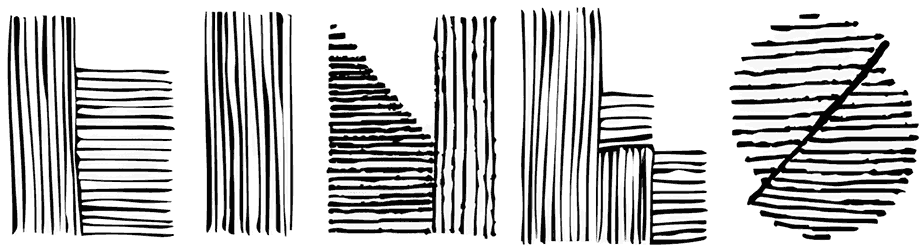
Lines Font
Lines is a unique artwork that comes with a spectacular style and easily grabs the attention of the audience with the help of its eye-catching look.
This all-caps linear font can multiply the influence of your graphic content by adding a sense of jauntiness, eeriness, grunge, and disorder to it. Needless to say that it suits your street posters, logos, or flyers. Aside from the lack of numbers and good readability, we strongly recommend you not overlook this sketched font.